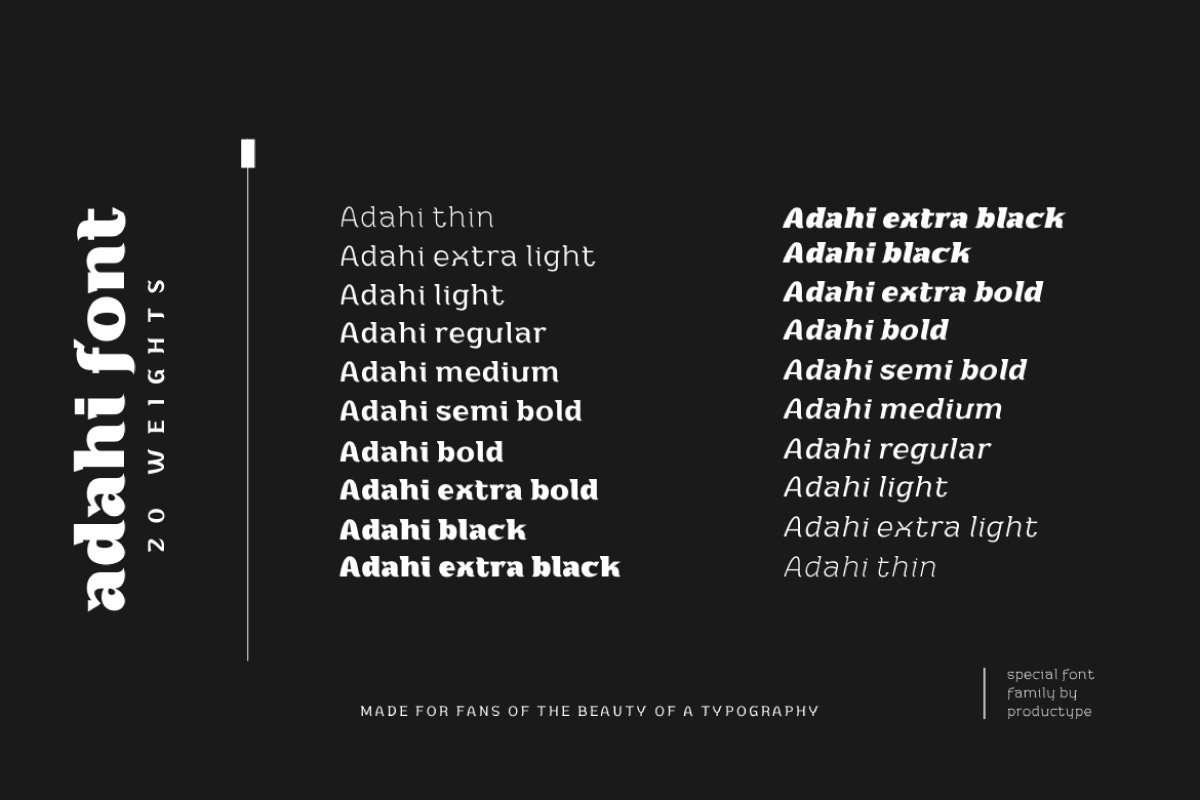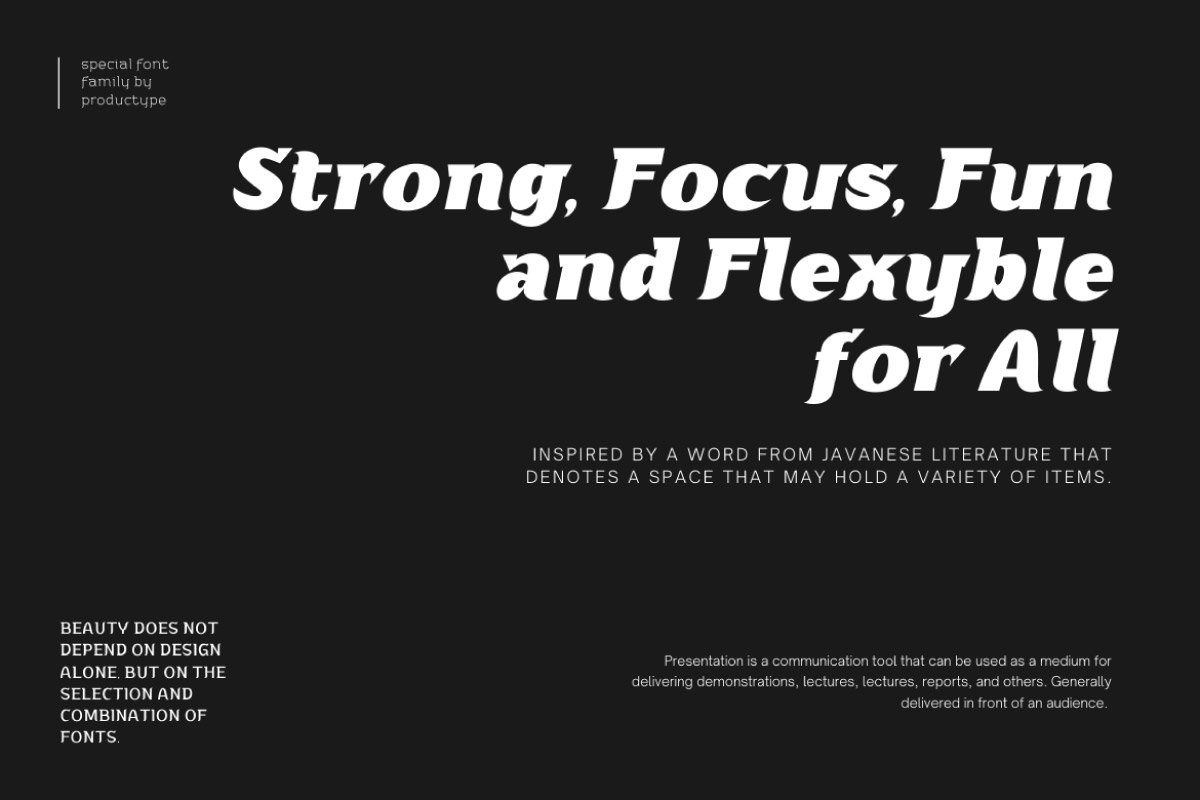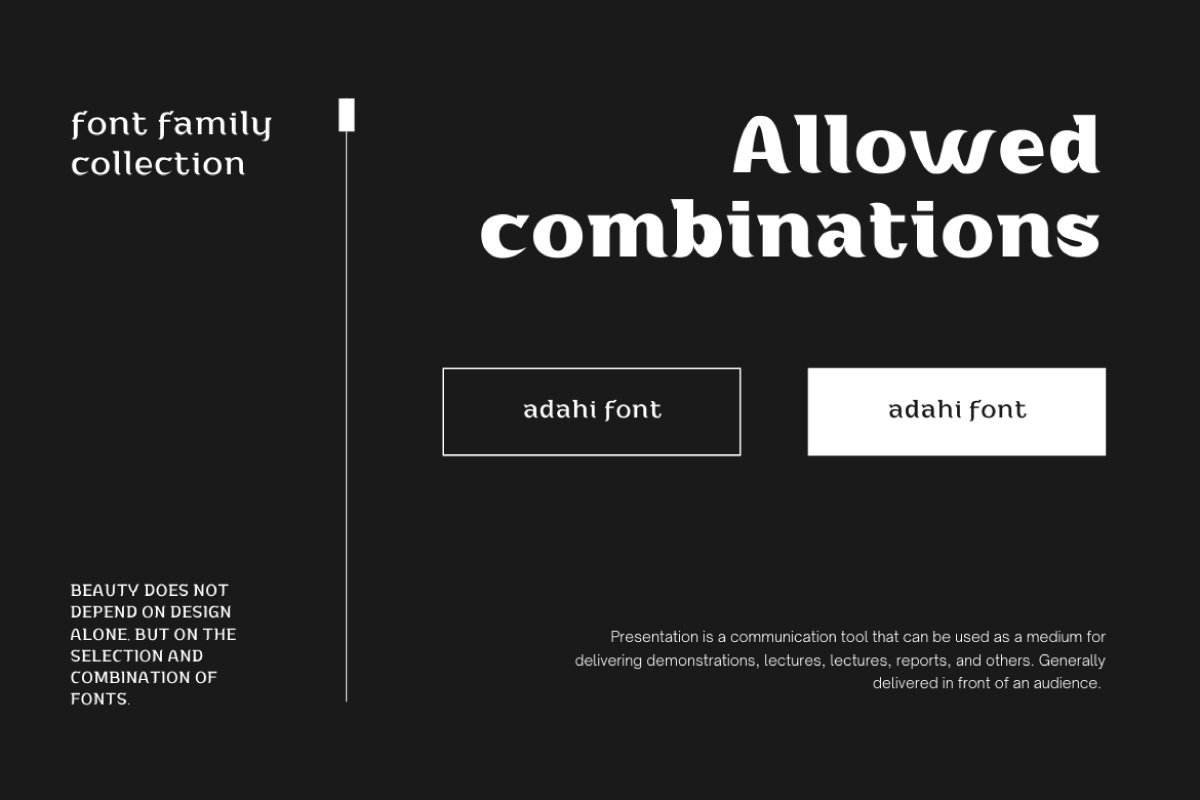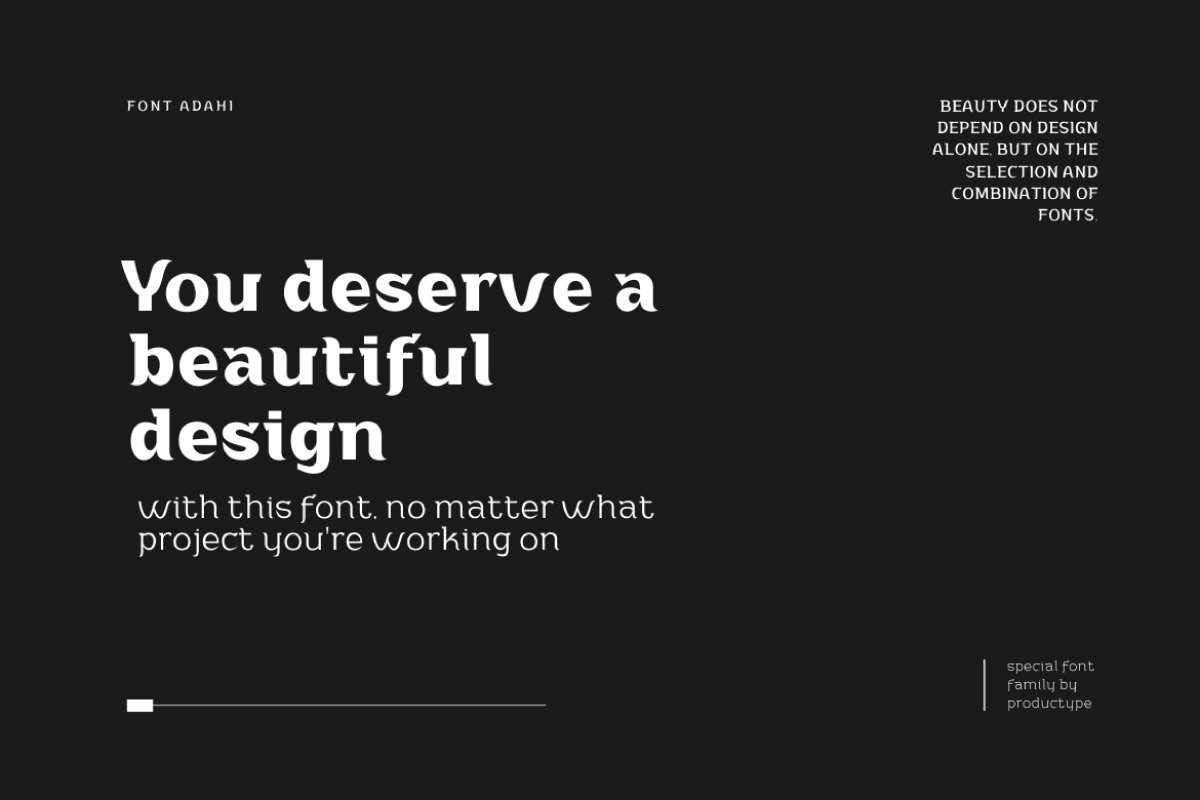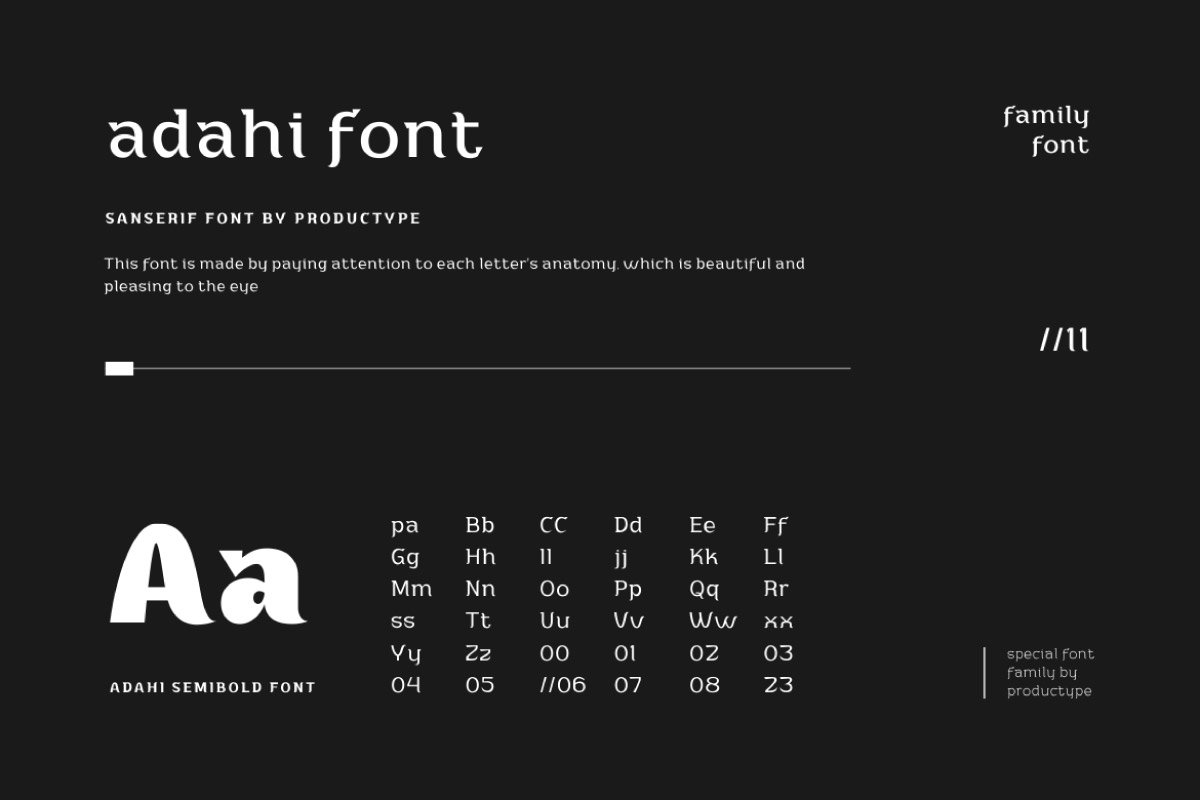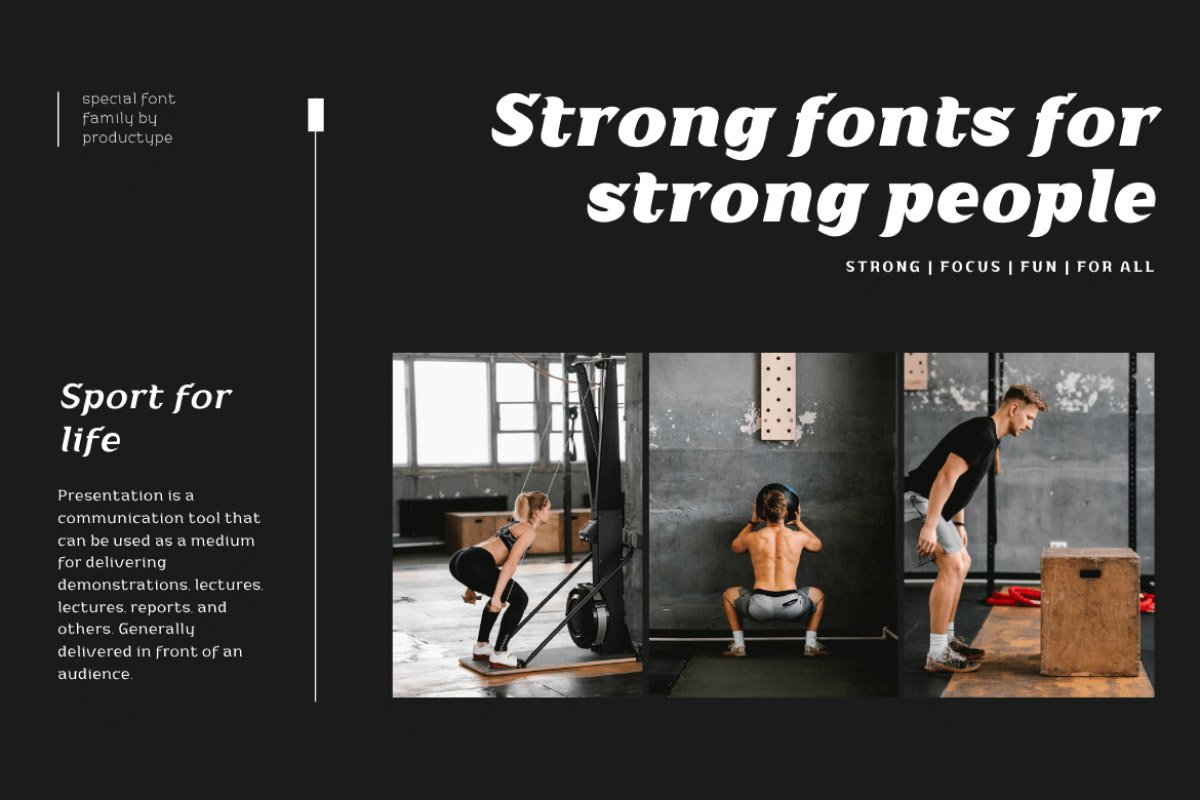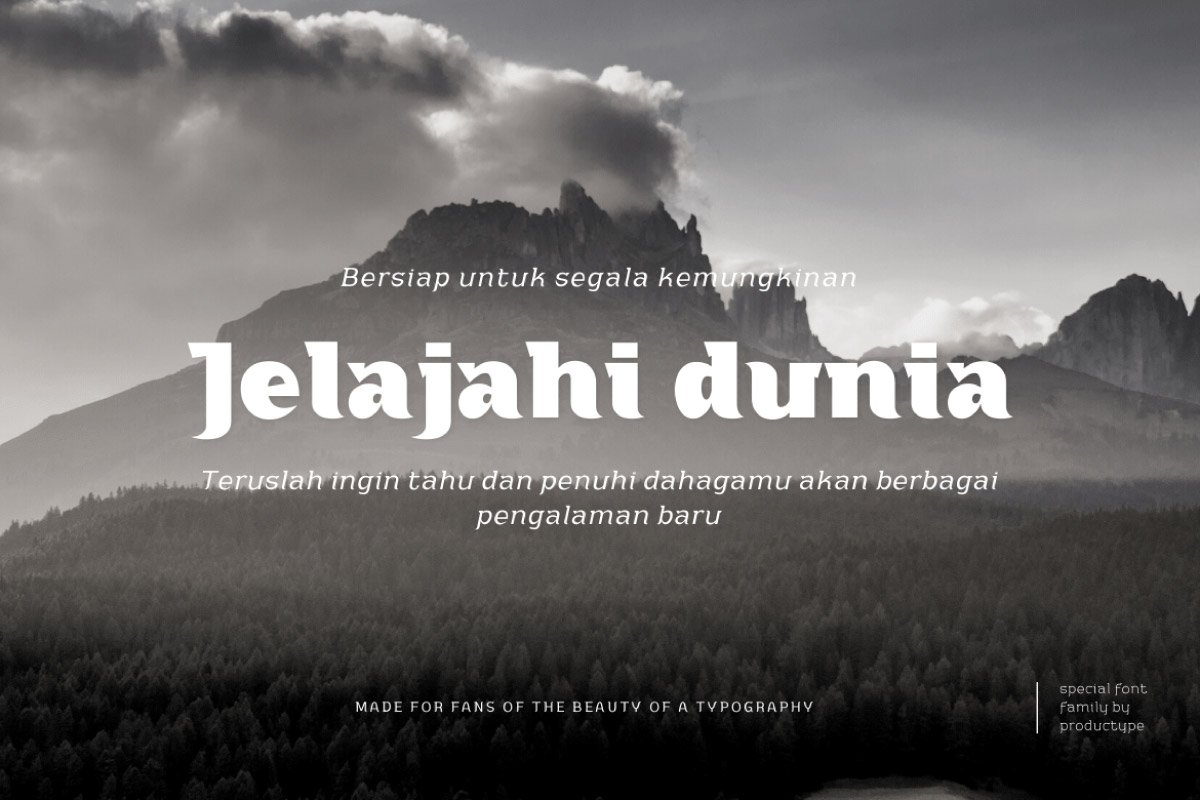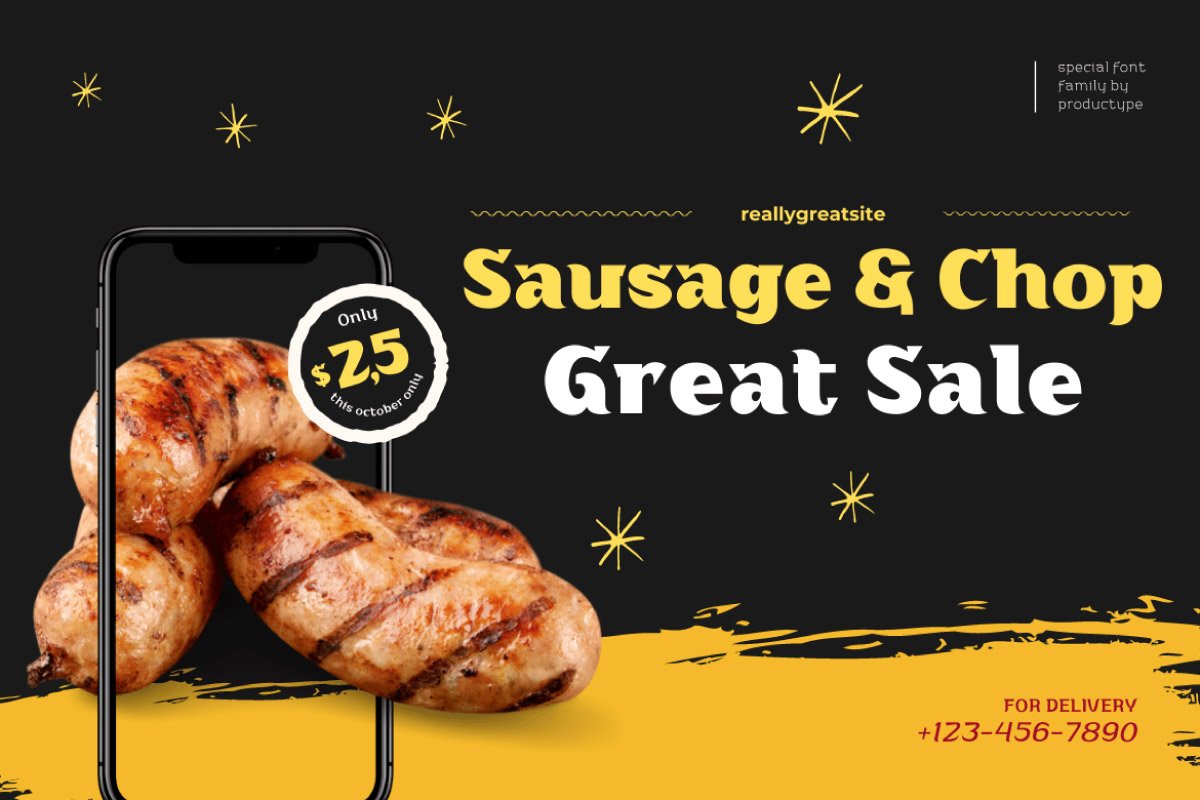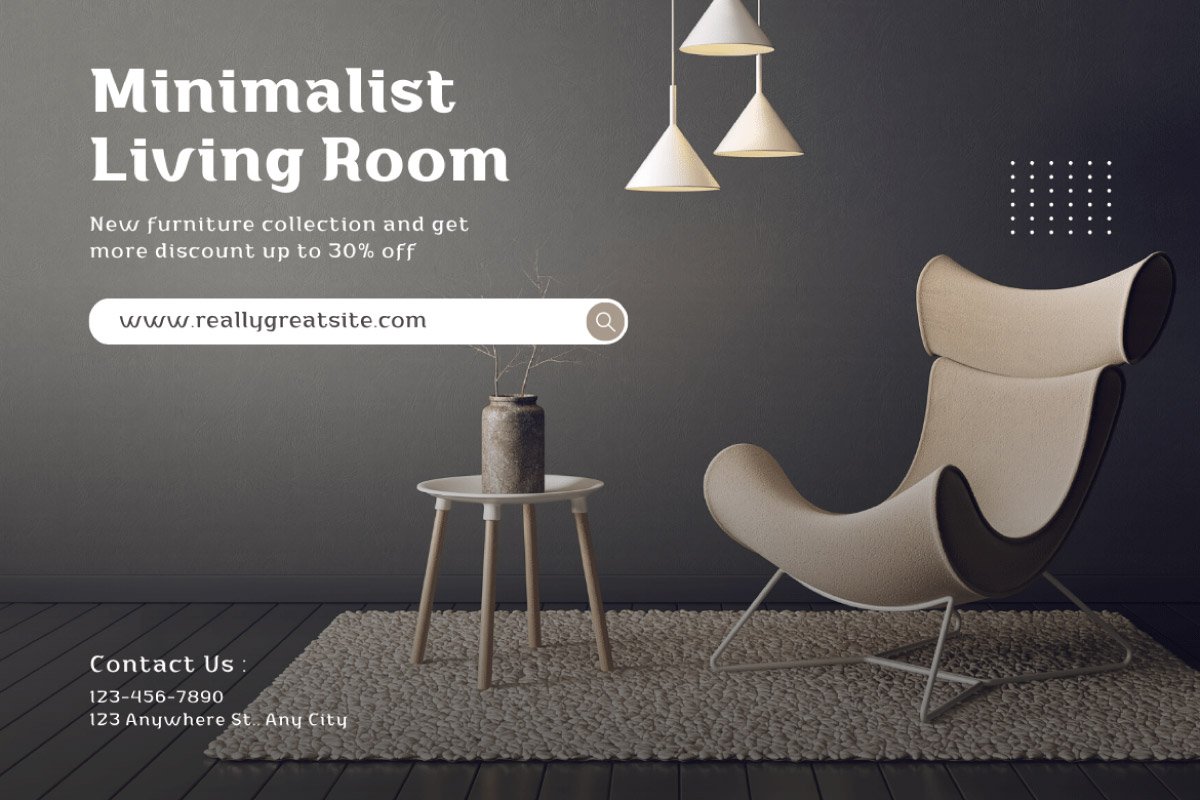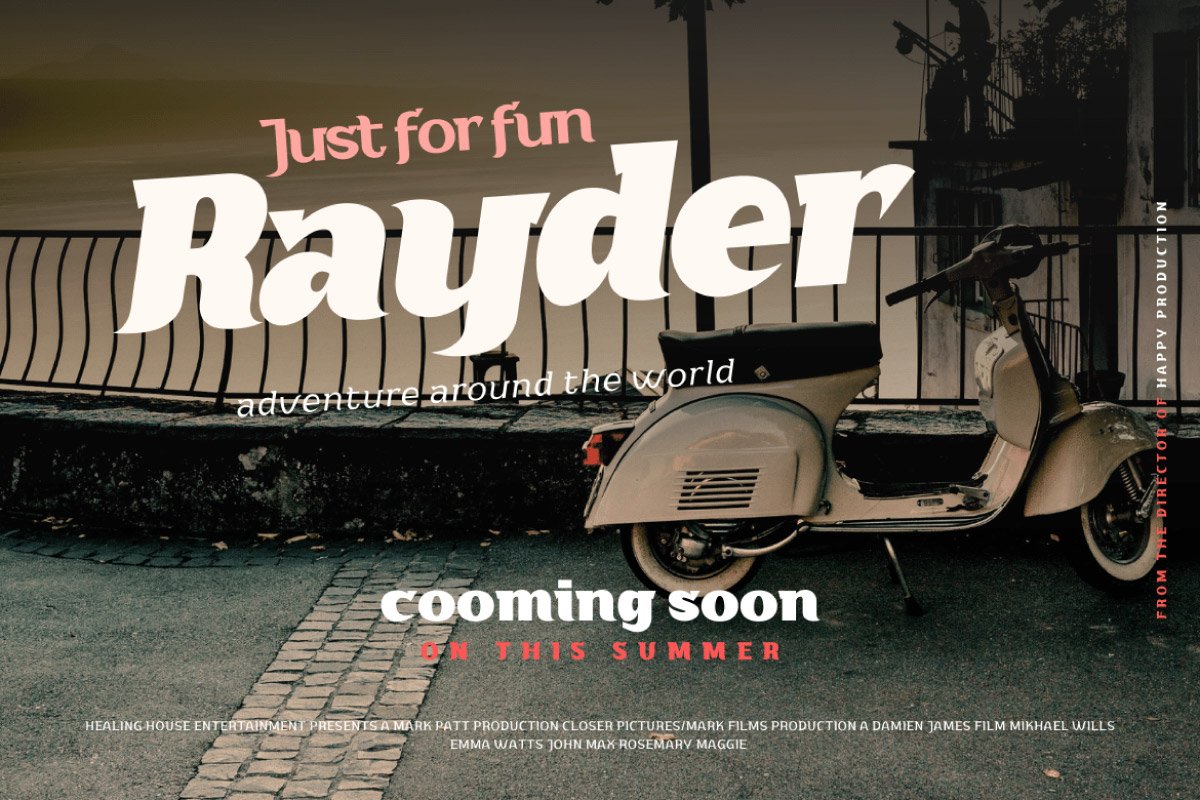
5. Adahi – Sans Serif Family Font
Adahi – Sans Serif Family Font
Adahi is a sans serif typeface with rounded and pointed corners and a minimalist style. Adahi fonts is a big font family with over 20 different types! Contrast, style, and weight abound in Adahi. This typeface features rounded and pointed corners and is very functional, clean, and modern sans typography. The typeface appears to be clean and geometric, yet it is designed with distinctive stylistic aspects to give the Adahi font a unique and particular feel. The Adahi type family is comprised of 20 weights, each with oblique variations for multifunctional use, particularly in collaborative projects such as websites, magazines, editorial, publishing, and packaging.